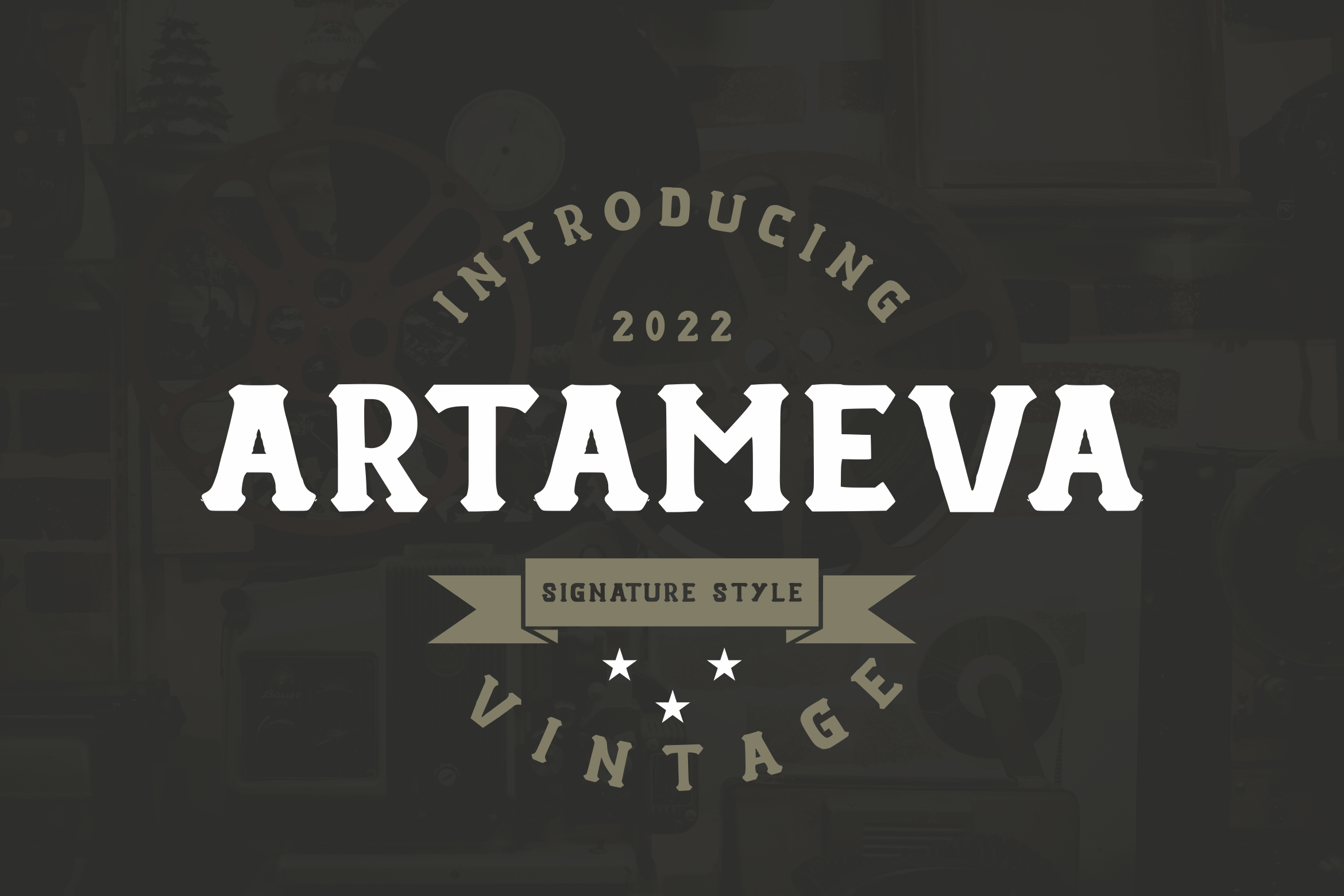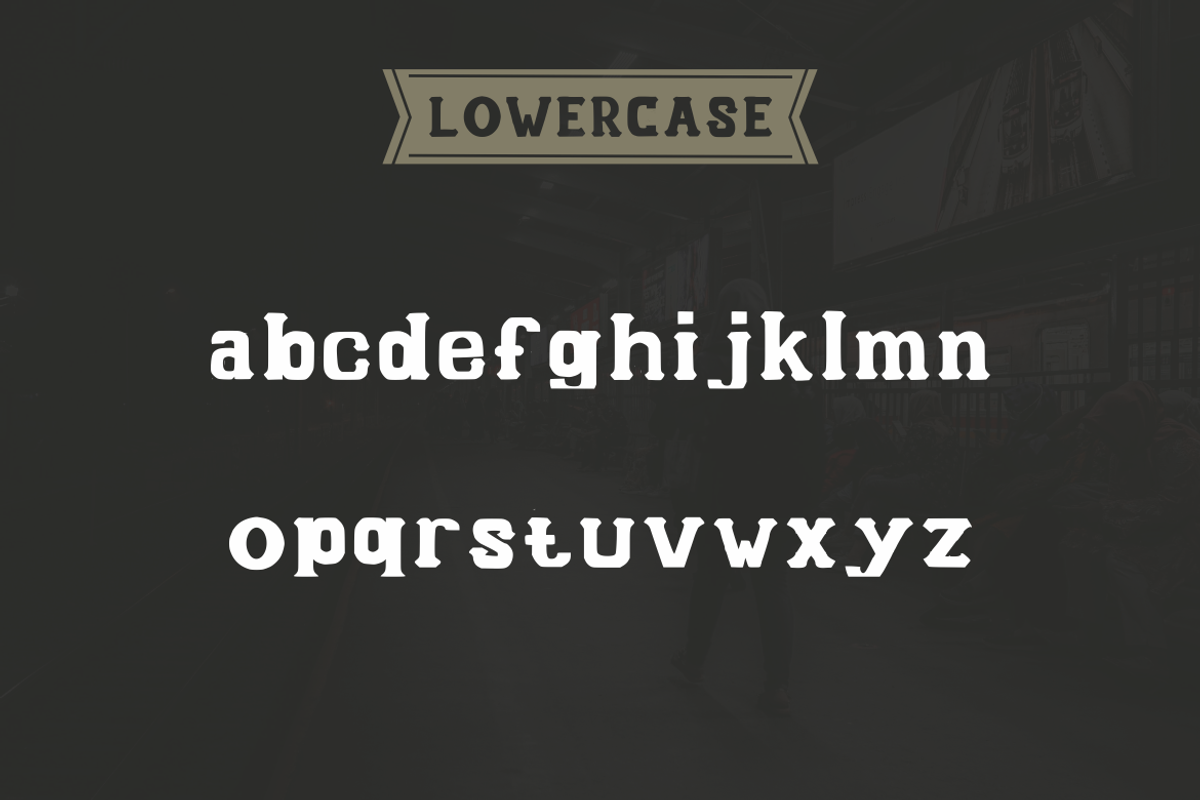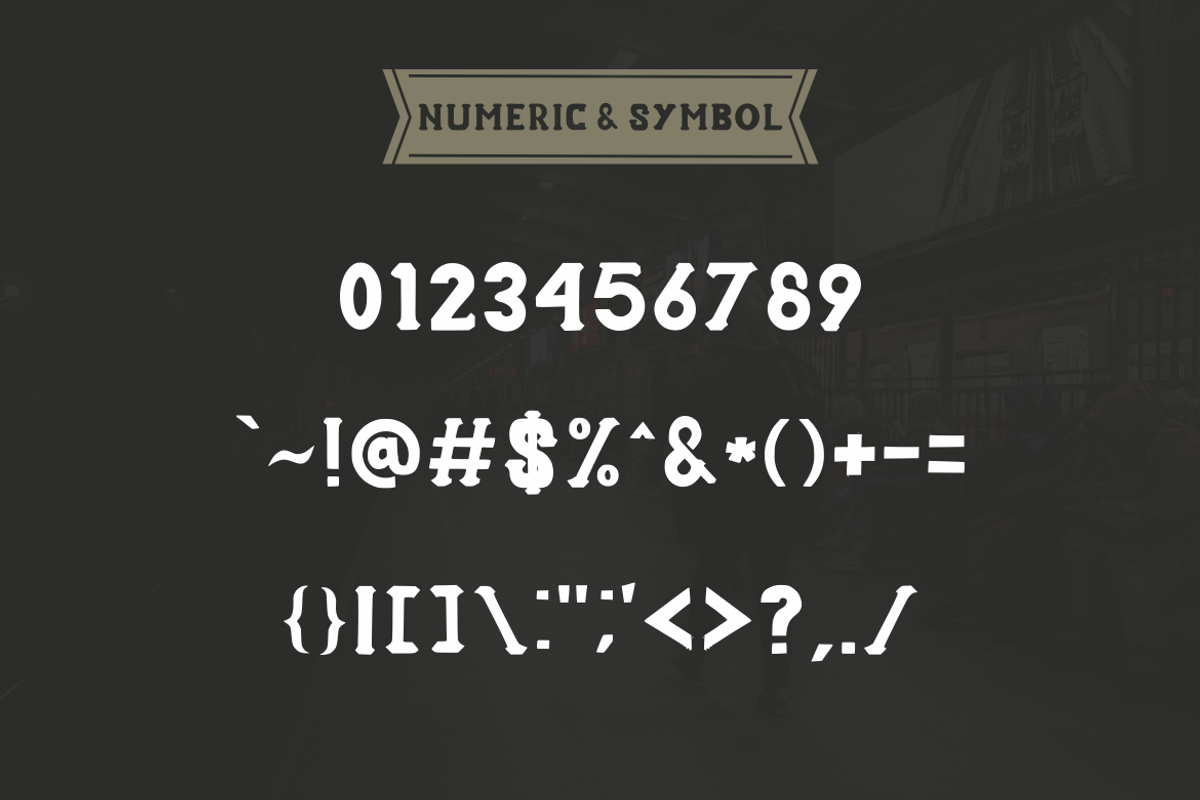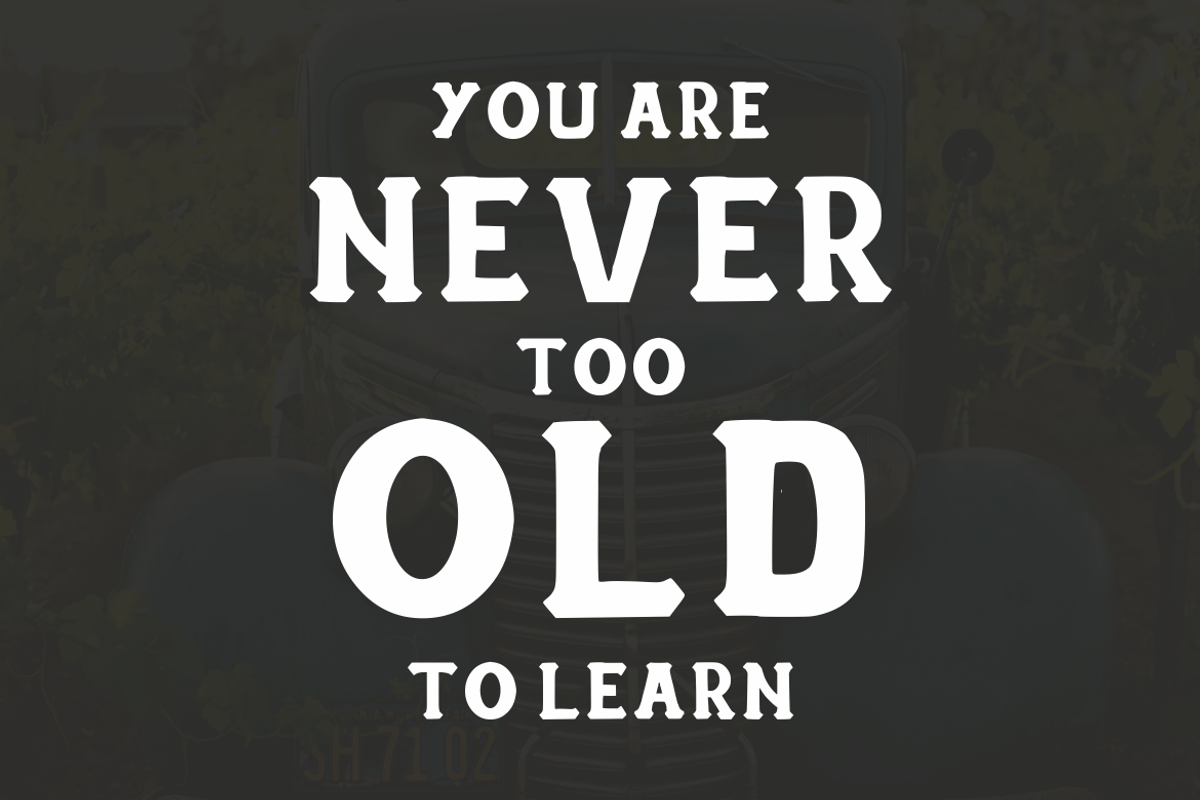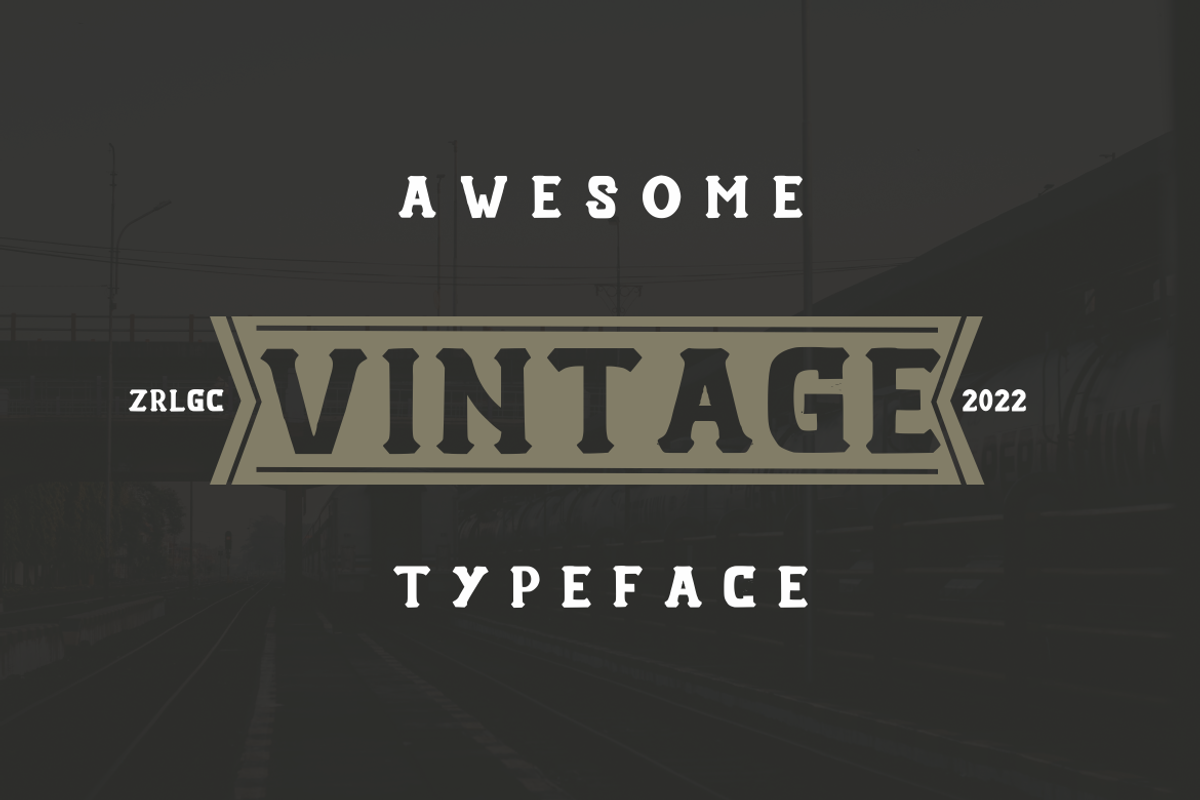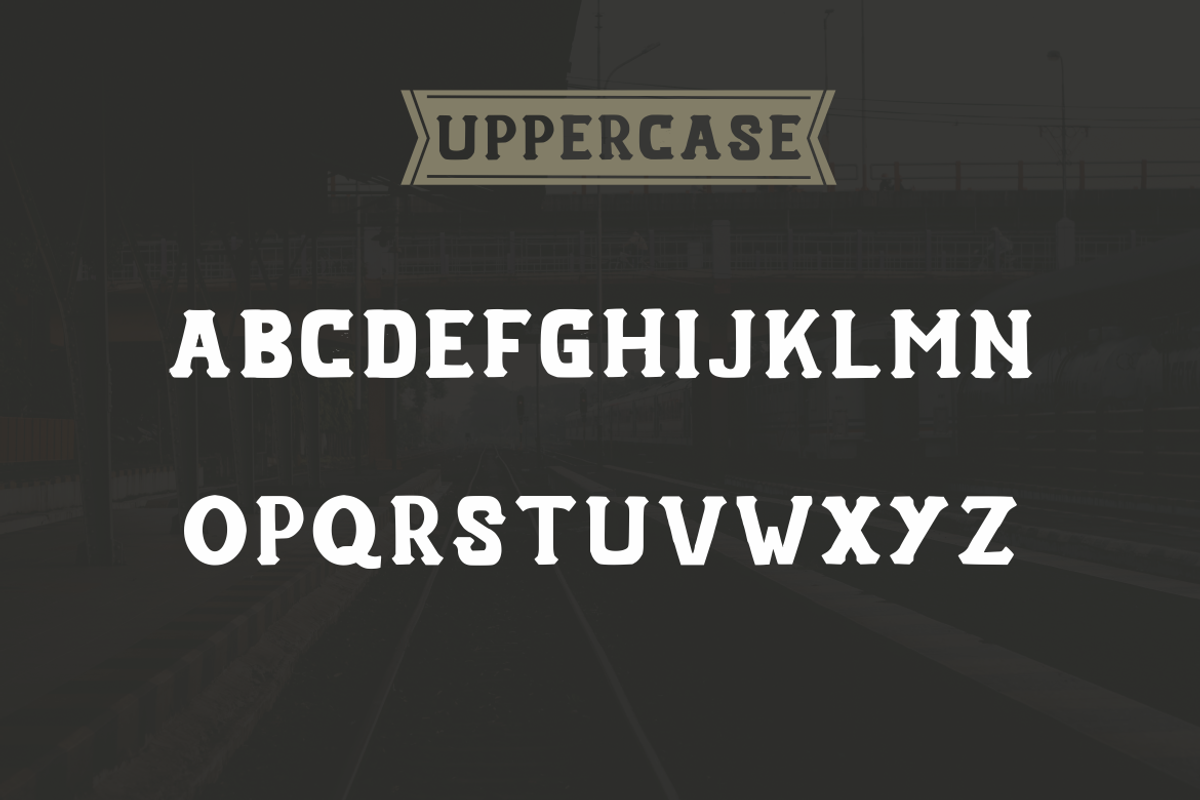
Artameva Vintage Font
Artameva is a modern vintage font that we designed with original touch for your needs. This cool font is complete with Uppercase, Lowercase, Numeric & symbols. This very strong and sharp font is perfect for titles, typography, posters, magazines, brochures, packaging, Websites and much more for your design needs, making your designs more cool.